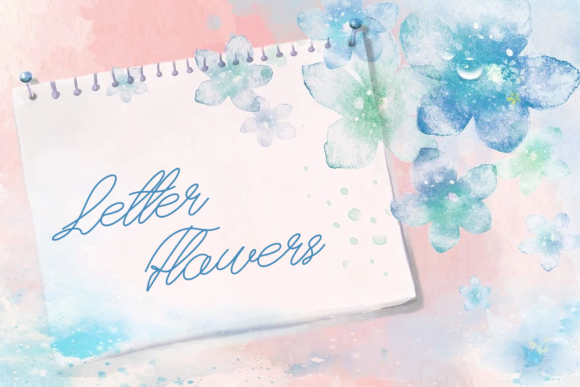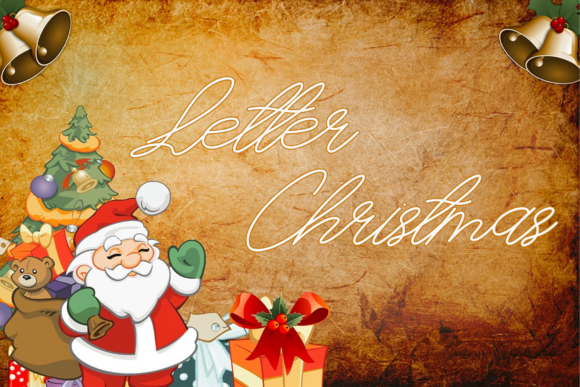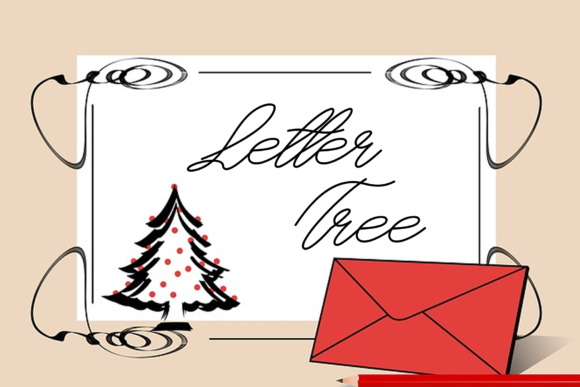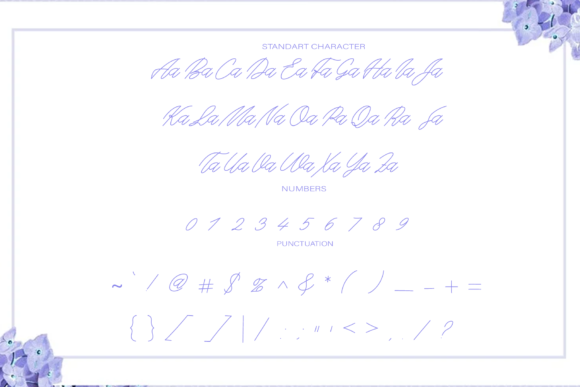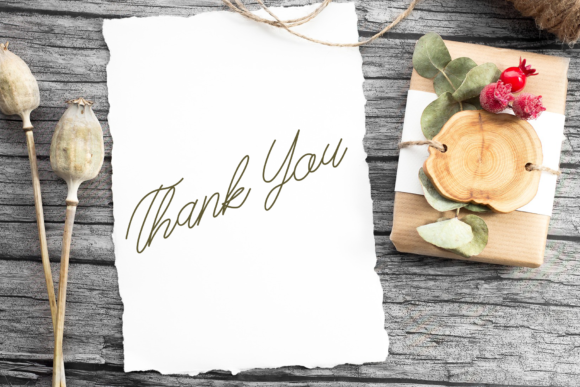
Introduction to Letterpen Font
Have you ever sat down with a blank page and a pen, waiting for inspiration to strike? The scratch of the pen on paper, the flow of ideas, and the beauty of the handwritten script – it’s a moment many creatives cherish. For designers, this experience is not just a nostalgic memory but a valuable resource to draw from. A well-designed font can evoke the same feeling, and that’s where the Letterpen Font comes in – a delicate, elegant, and flowing handwritten font that is perfect for adding a personal touch to any design.
The Letterpen Font is a design resource that can elevate your creative project to new heights. With its beautiful and well-balanced characters, it’s a versatile font that matches a wide pool of designs, from a simple text overlay on a transparent background to a bold statement on a product label.
Key Features of Letterpen Font
- High-quality, unique font designed specifically for creative projects, perfect for adding a personal touch.
- Features a transparent background, giving designers the flexibility to customize the font to suit their project’s needs.
- Available in a single size, making it easy to scale and adjust to fit various design elements.
- Designed with a high resolution, ensuring crisp and clear text, even when enlarged or used in high-resolution projects.
- Suitable for a variety of creative projects, from digital art to print materials, and everything in between.
Honest Review: Letterpen Font
As a designer, I’m always on the lookout for high-quality design resources to elevate my creative projects. The Letterpen Font caught my attention, and I was excited to give it a try. Here’s my honest review.
- Unique and creative design: The Letterpen Font has a distinctive style that sets it apart from other fonts. Its playful and whimsical feel makes it perfect for creative projects that need a bit of personality.
- High-quality rendering: The font is well-designed and renders beautifully, even at larger sizes.
- Transparency issues: The font’s transparent background can sometimes cause issues with layering and blending, so be sure to use it carefully.
- Limited font sizes: While the font looks great at larger sizes, it can get a bit fuzzy at smaller sizes, so be mindful of your text sizing.
Overall, I’m impressed with the Letterpen Font’s unique design and high-quality rendering. While it has some limitations, it’s a great addition to any designer’s toolkit, especially for creative projects that need a bit of personality. Give it a try and see how it can elevate your designs!
Letterpen Font